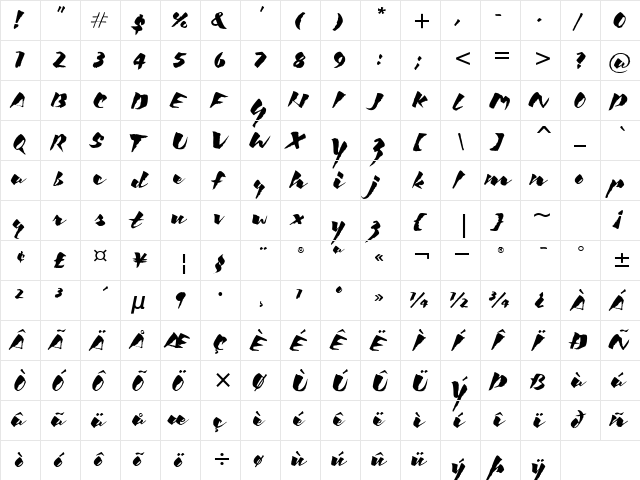
KickITC BoldItalic
Design Context for KickITC Typeface
KickITC is a composed and adaptable typeface that performs quietly and consistently across a wide range of design contexts. Its italic angle brings a sense of urgency and motion to the letterforms. Its bold stroke weight gives it real presence on the page.